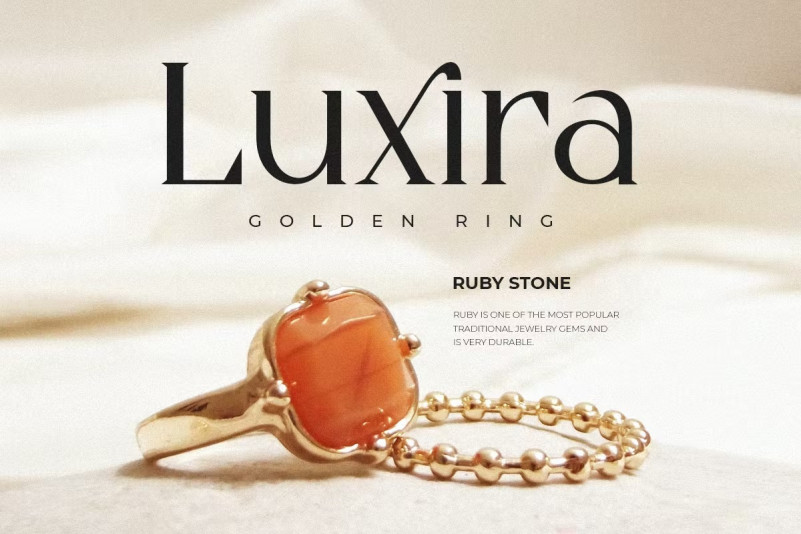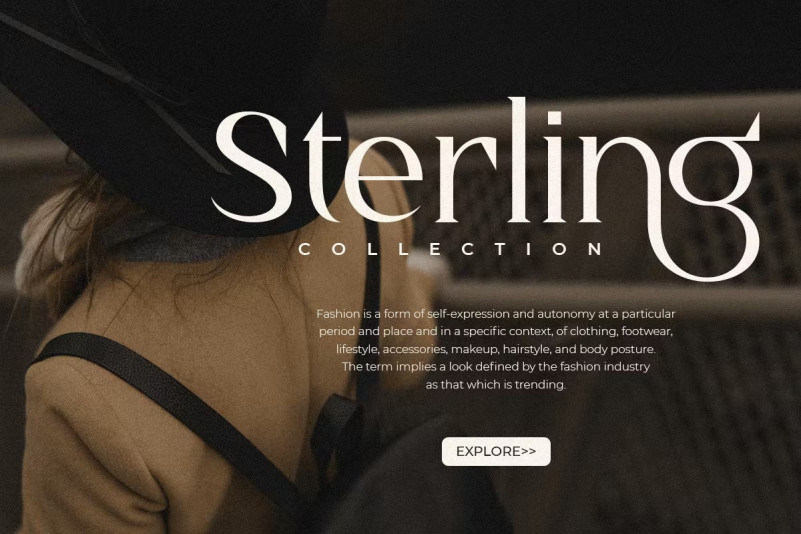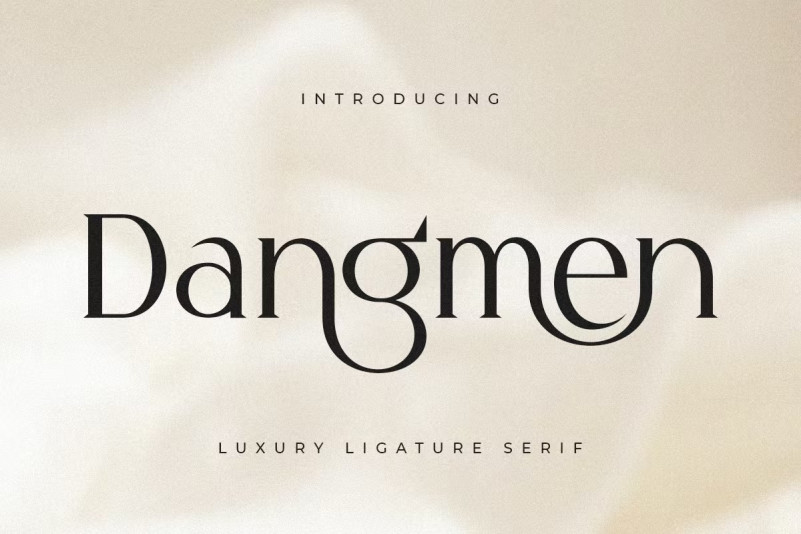
Dangmen Font
A serif that we created special for luxury branding needs, with extra ligature and alternates in unique shape will be ready to add value of your brand. It so nice to leverage designer or product owner that need solutions to make their design look more classy and modern. And specially for Dangmen font, We prepared any ligatures, and any alternate characters to help you create unlimited variations for your creative needs.